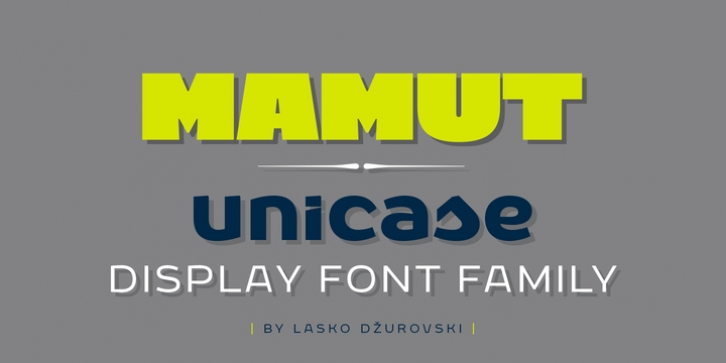
Mamut is a display type family of three weights. It has elegant and distinctive letterforms with lots of character. Mamut is your chunky friend, perfect for designing headlines, logos, labels, lettering works, posters and lots of eye-pleasing typographic works.